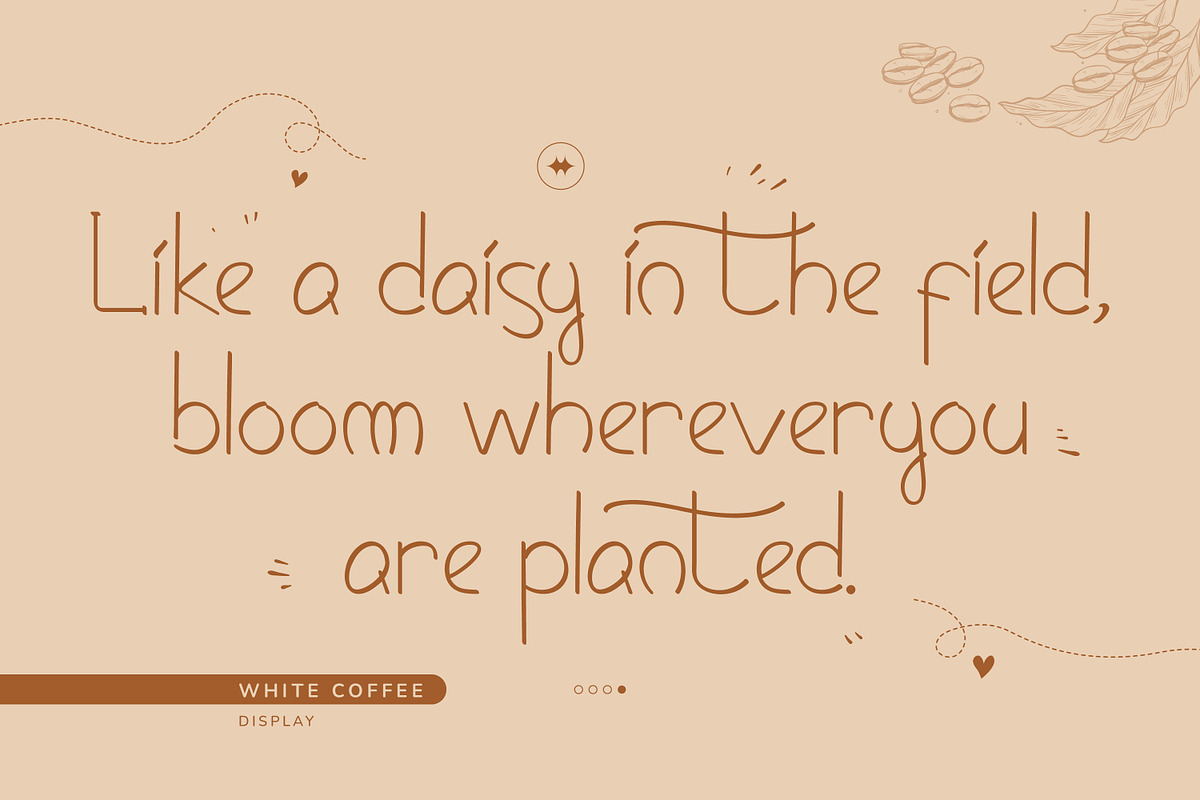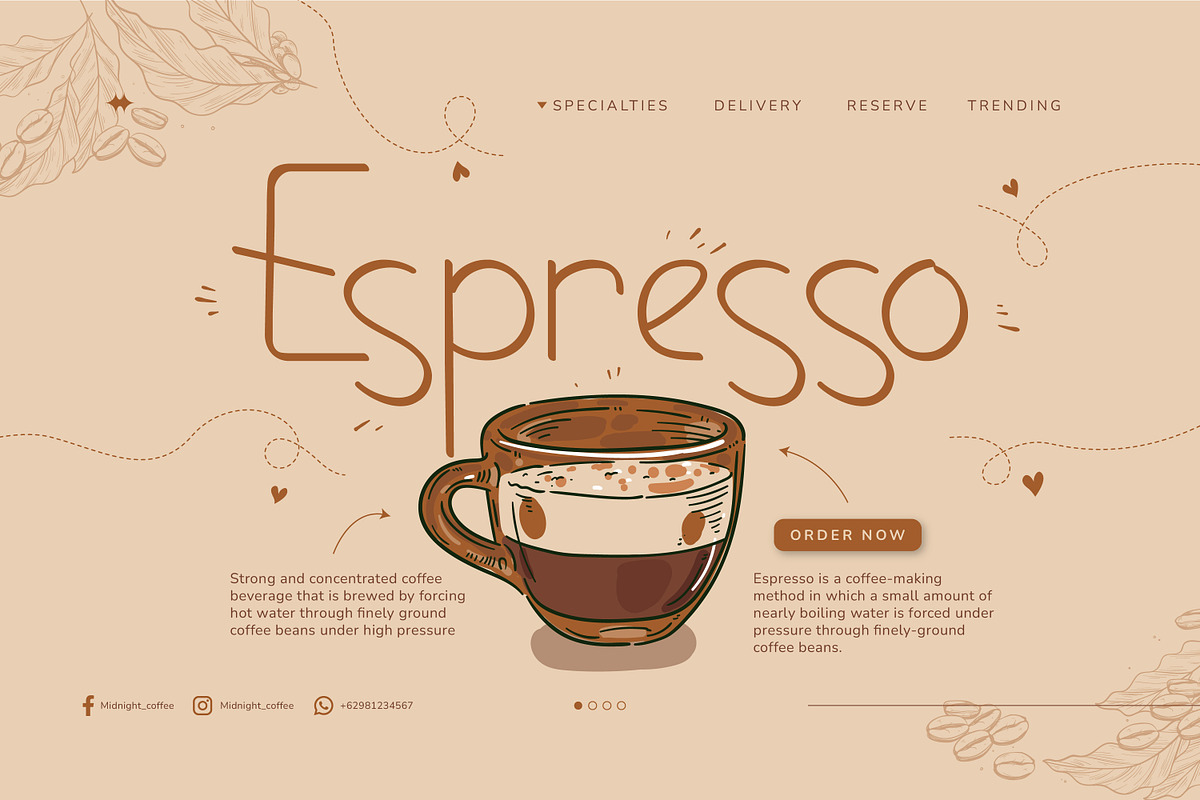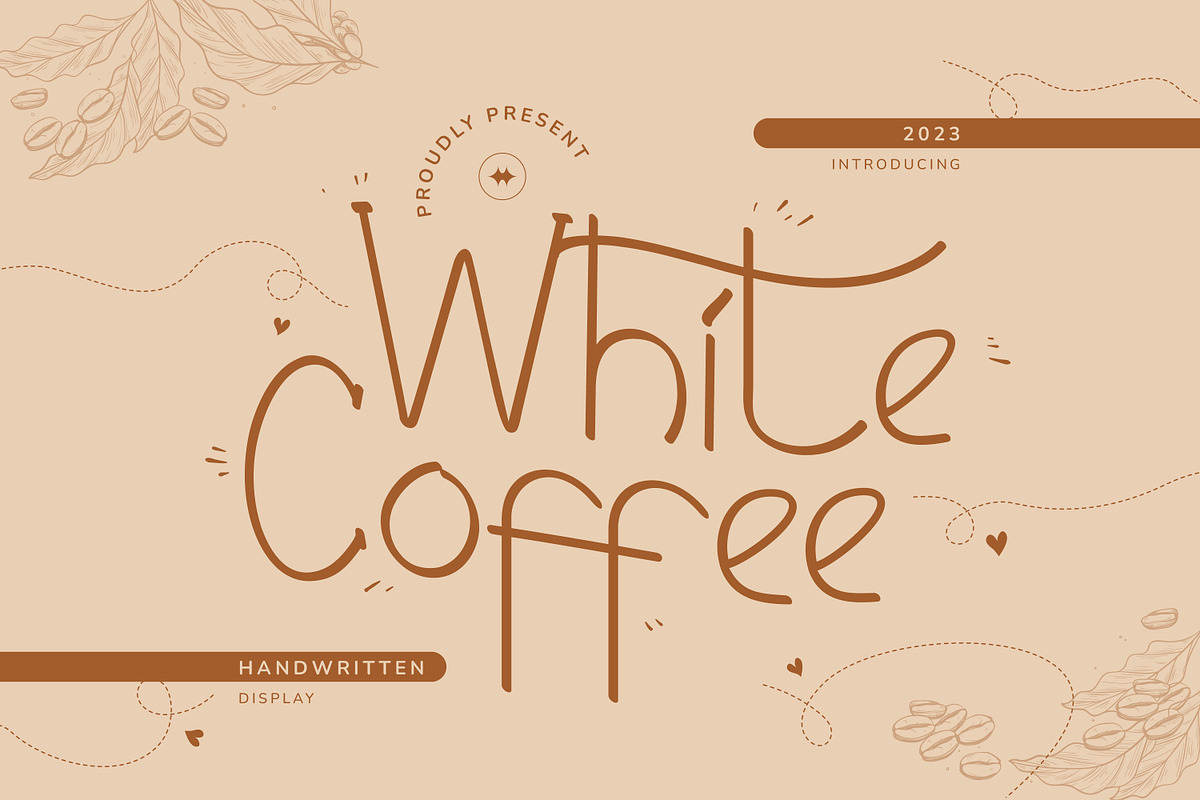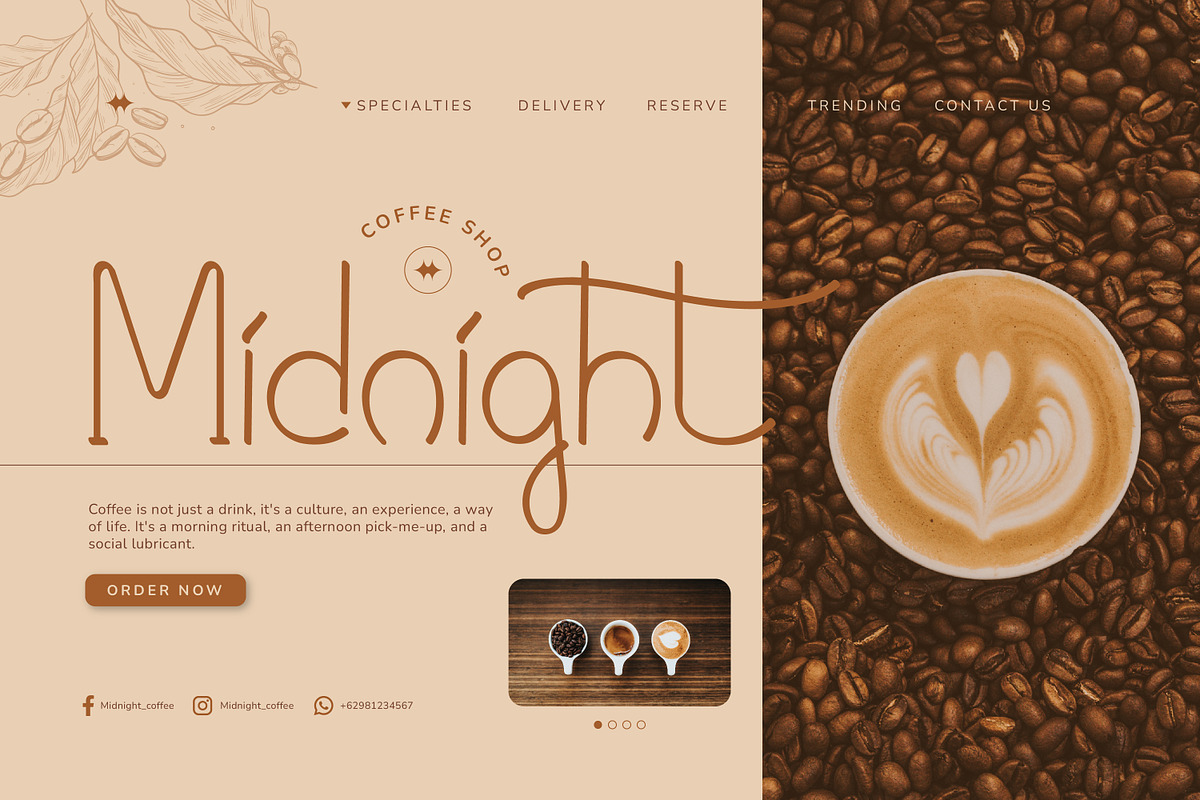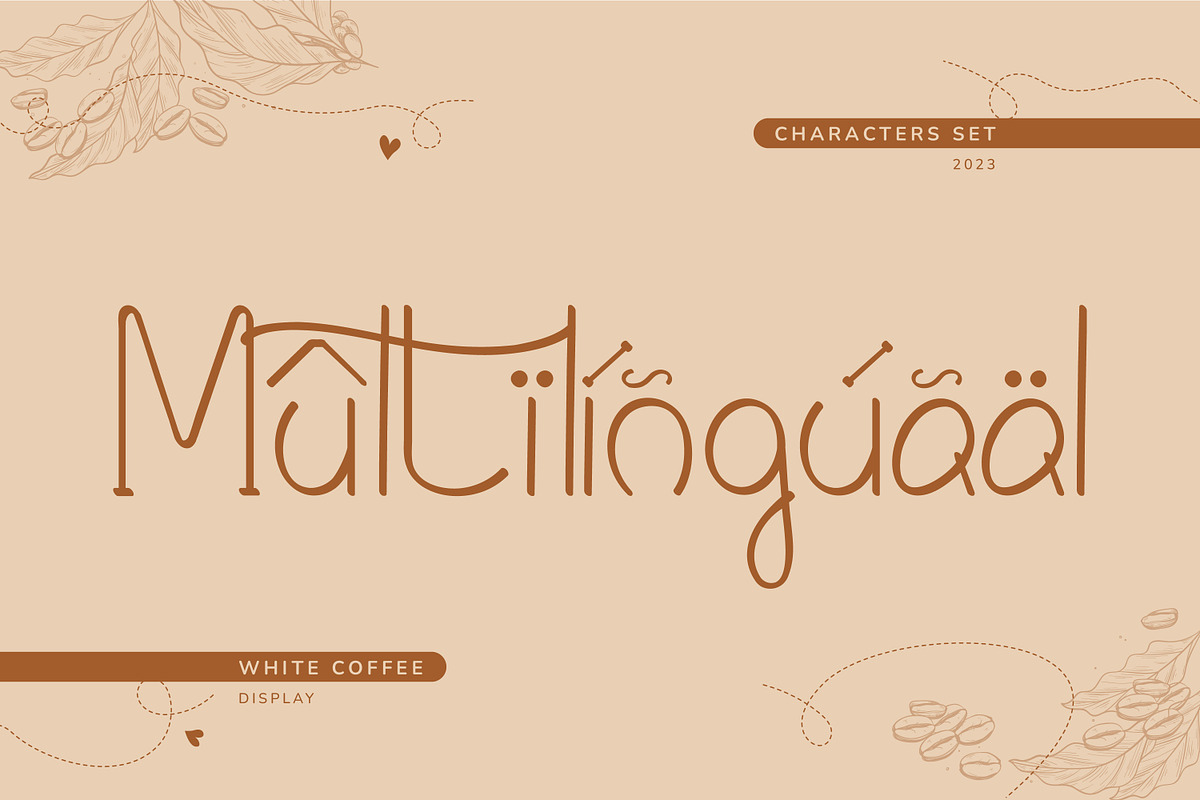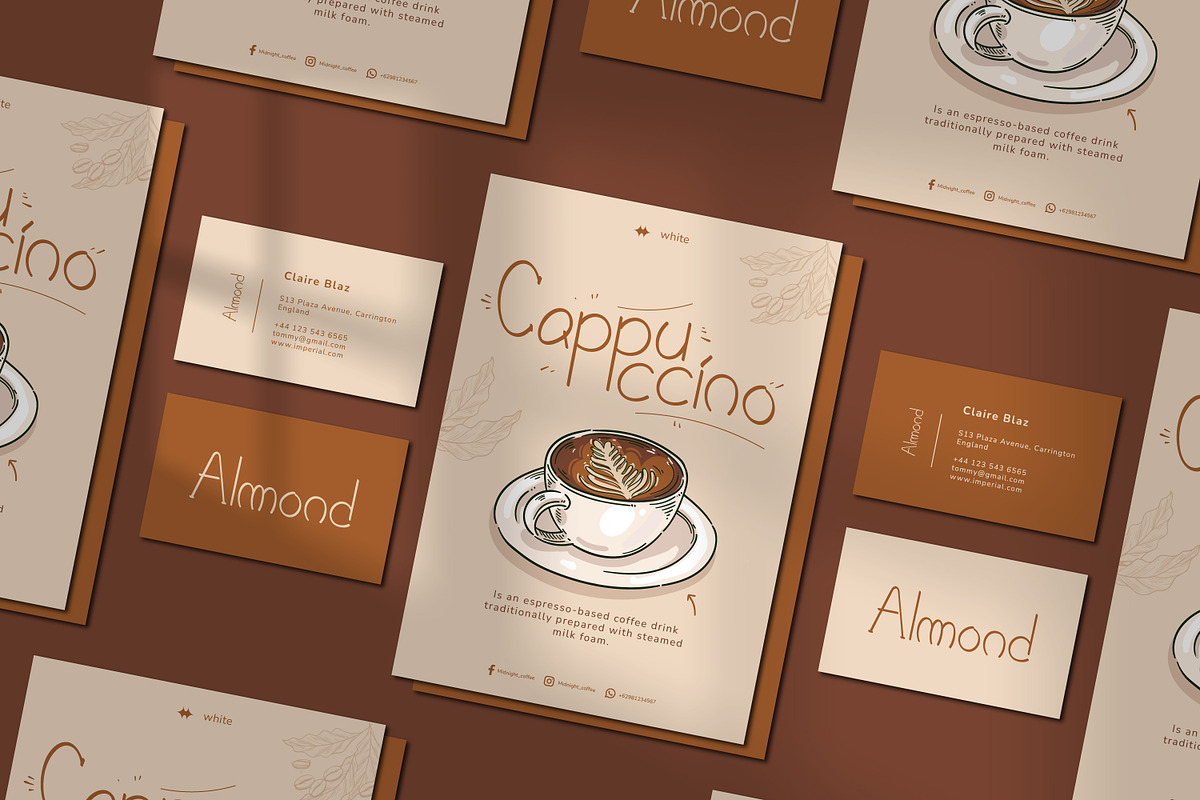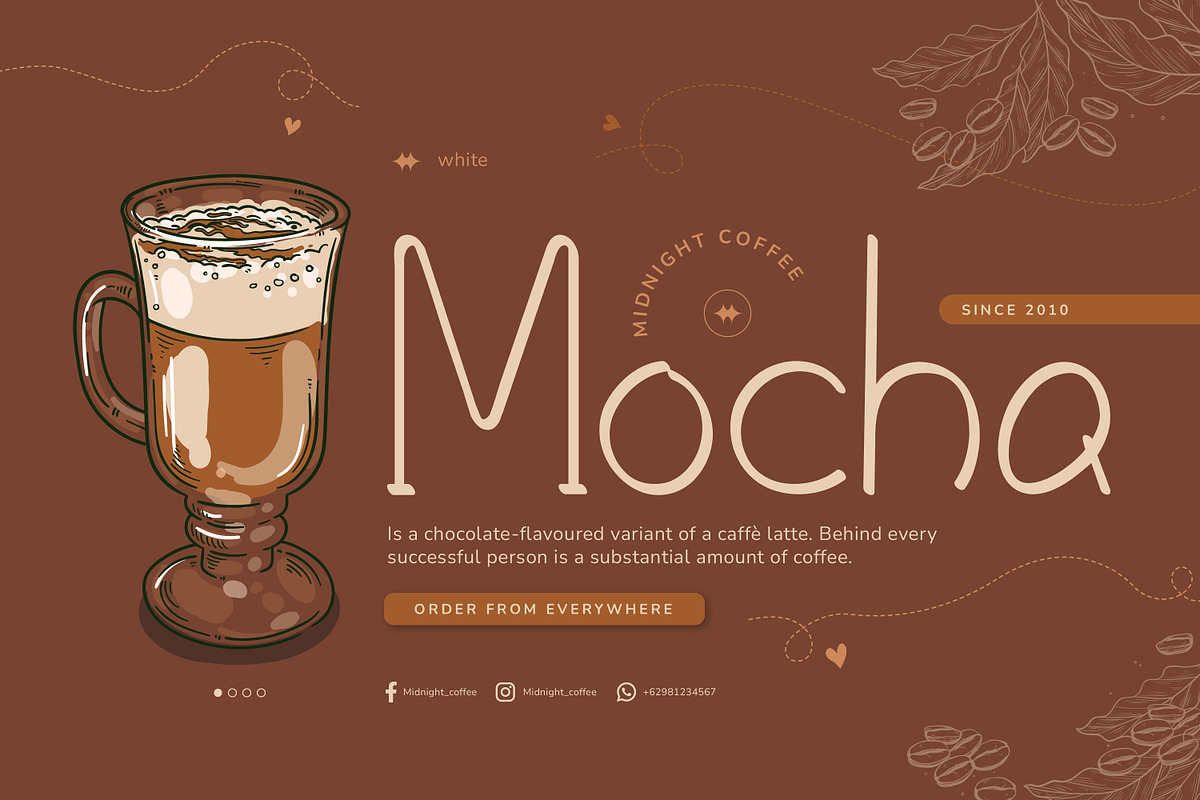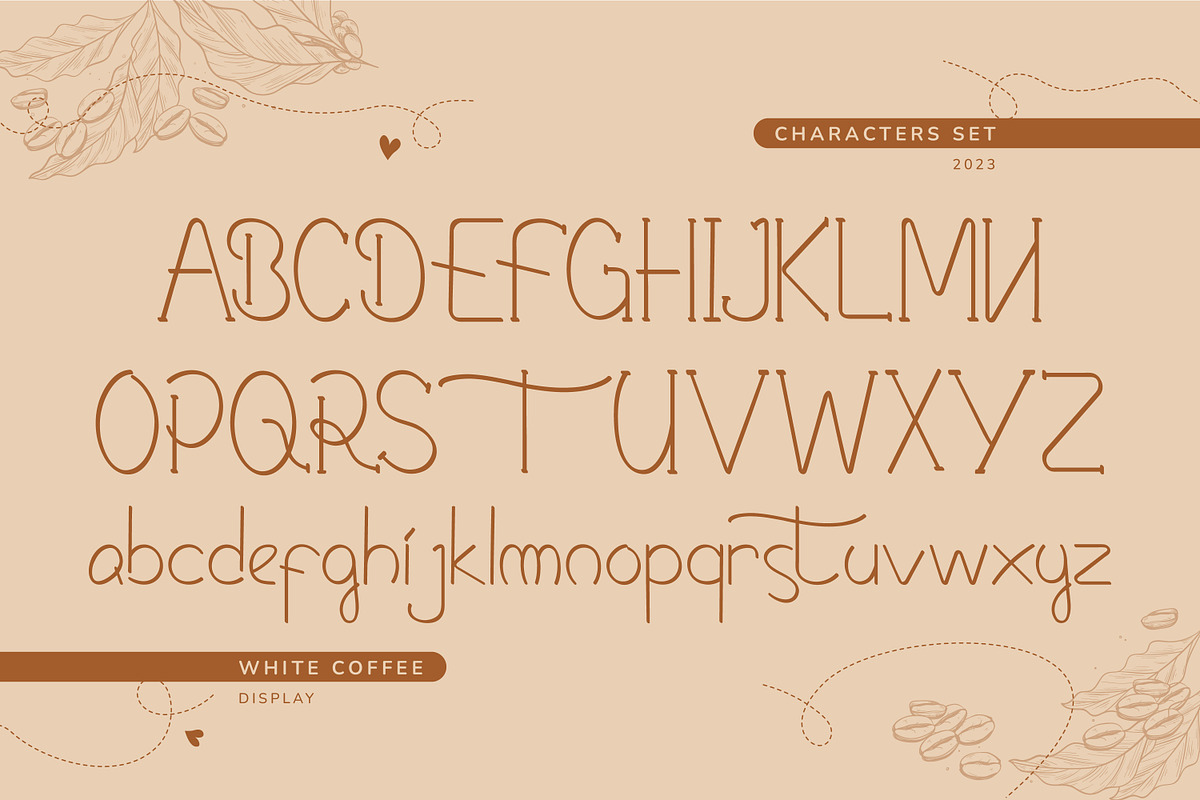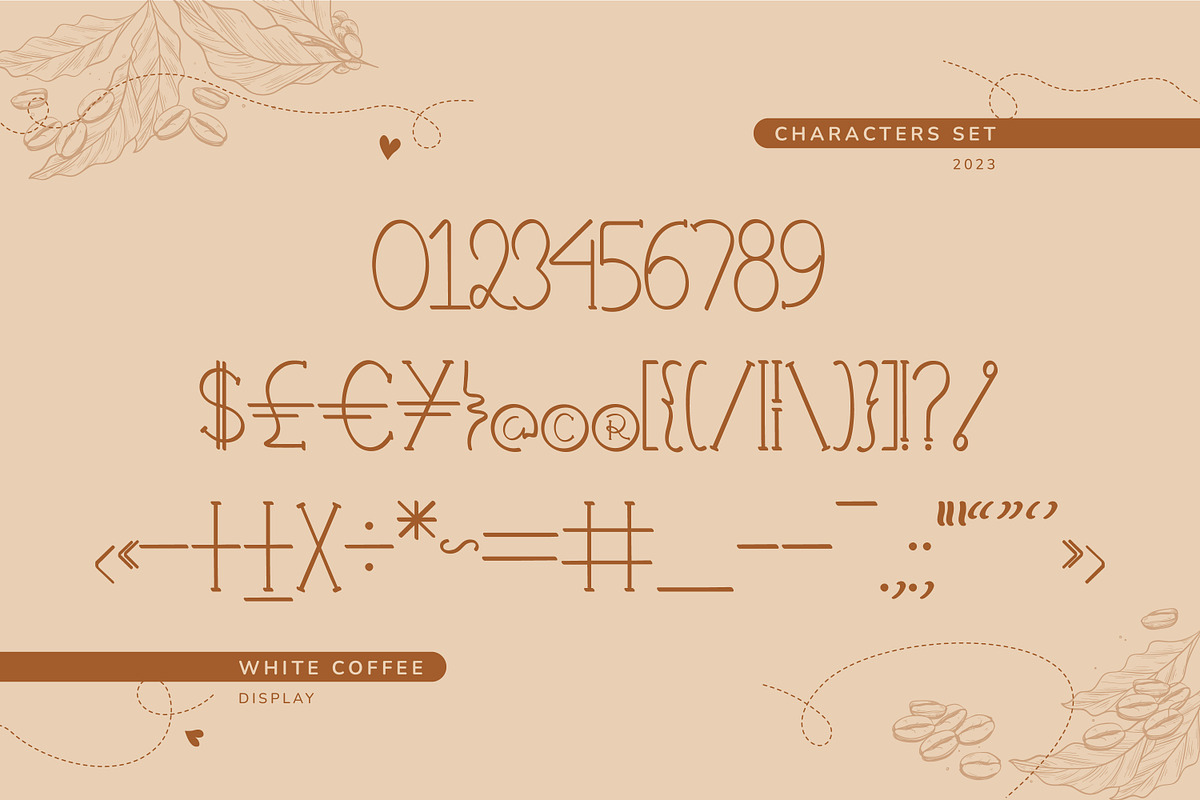
White Coffee Handwritten
White Coffee is modern and distinctive, designed to add personality to any project. Each letter is uniquely crafted, with bold strokes and intricate details that create a striking and unforgettable look. This font is perfect for branding, packaging, and other design elements that require a touch of creative flair, leaving a lasting impression on your audience.